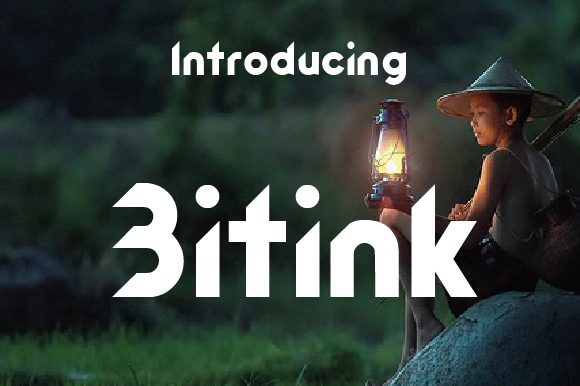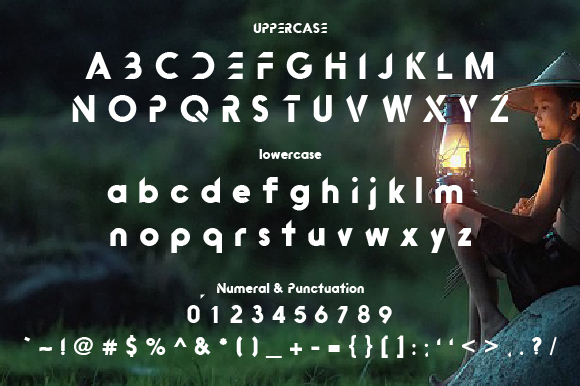
Bitink Font
About Bitink Font
The Bitink is a refreshing blackletter typeface. Its letters have a charming unusual shape which will give your design an exclusive feel.
It’s perfect for headlines, name cards, posters, logos magazines, covers, banners, and large-scale artwork,